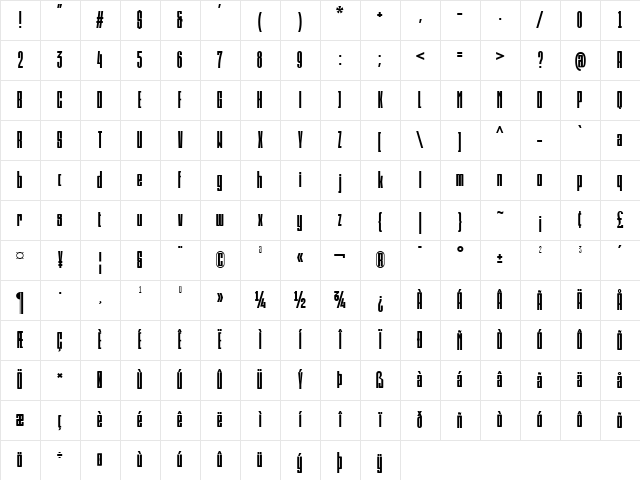
Complete Psilograph ExtBd Regular glyph index. Displaying only characters natively supported by Psilograph ExtBd Regular font.
Psilograph ExtBd is a composed and adaptable typeface that performs quietly and consistently across a wide range of design contexts.